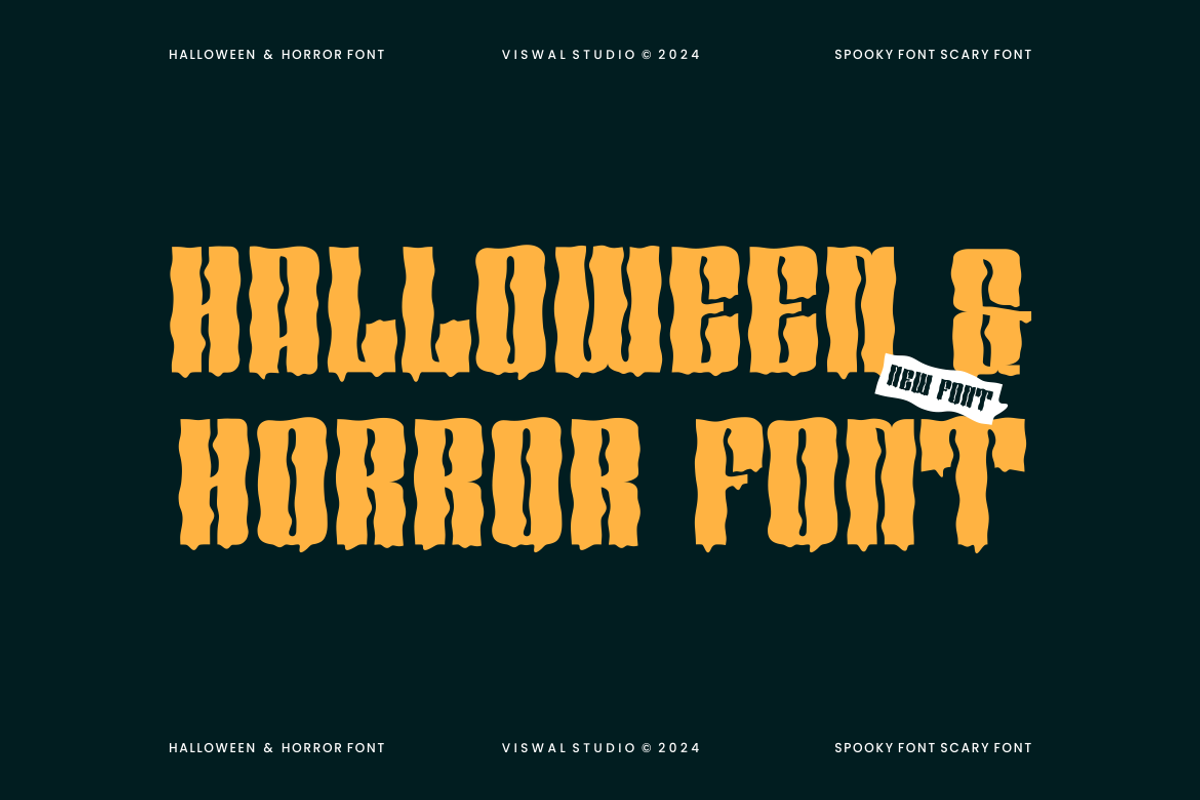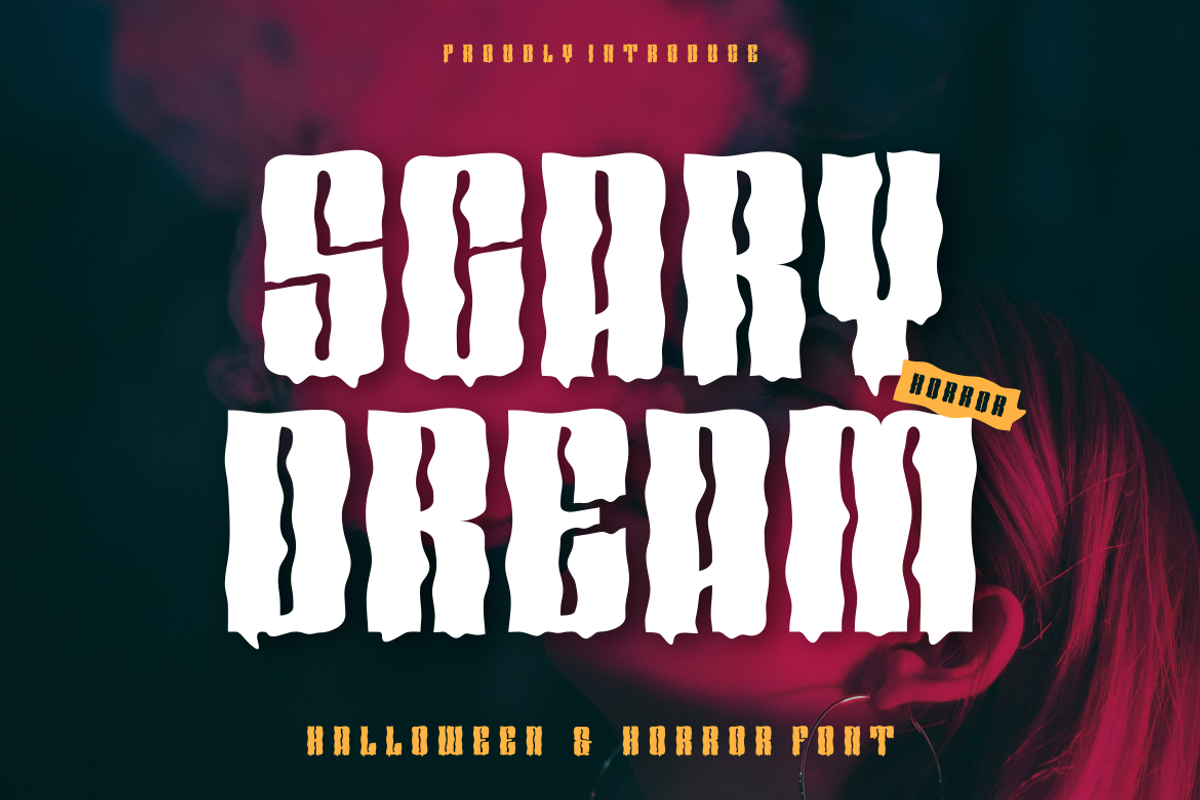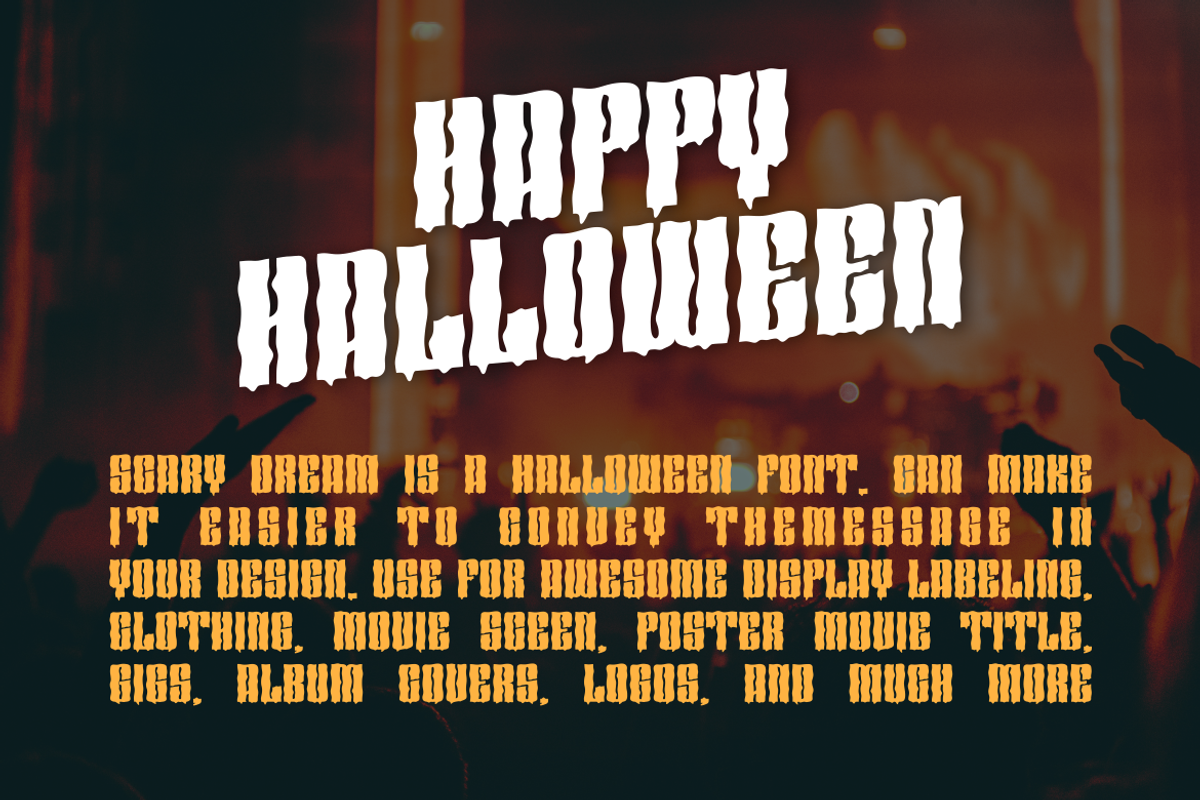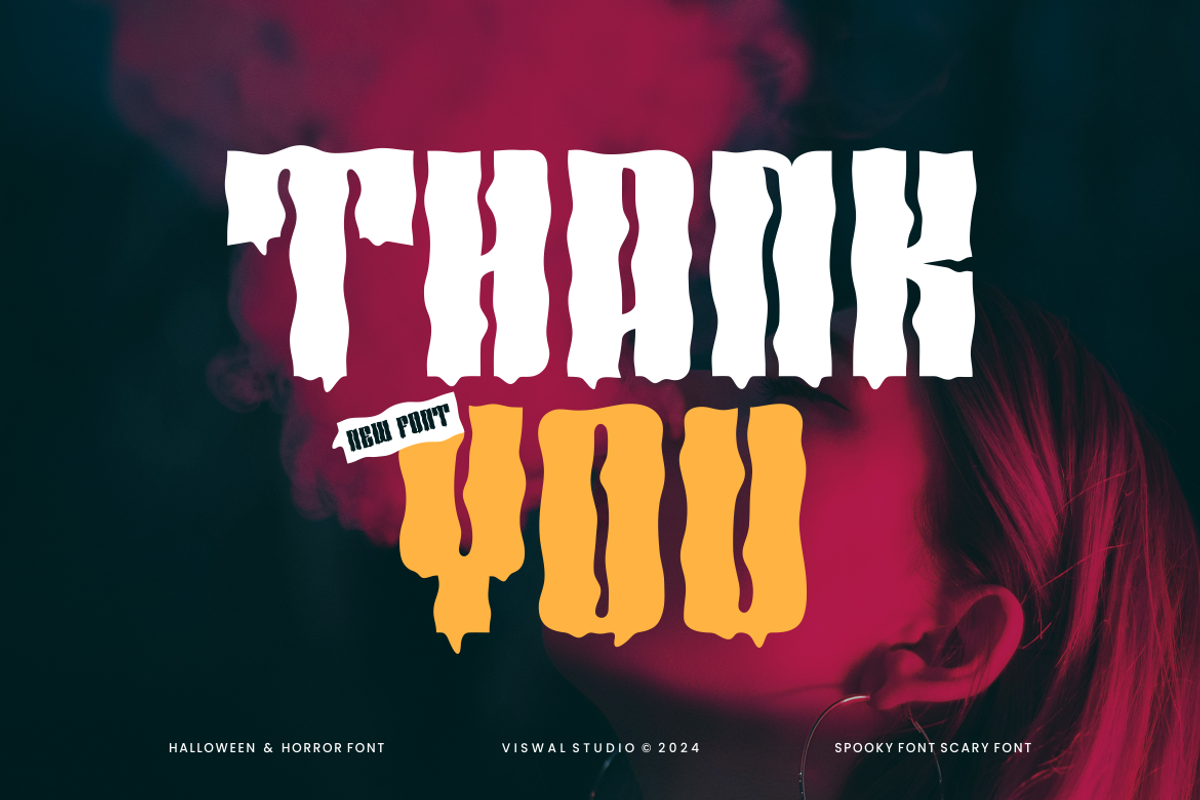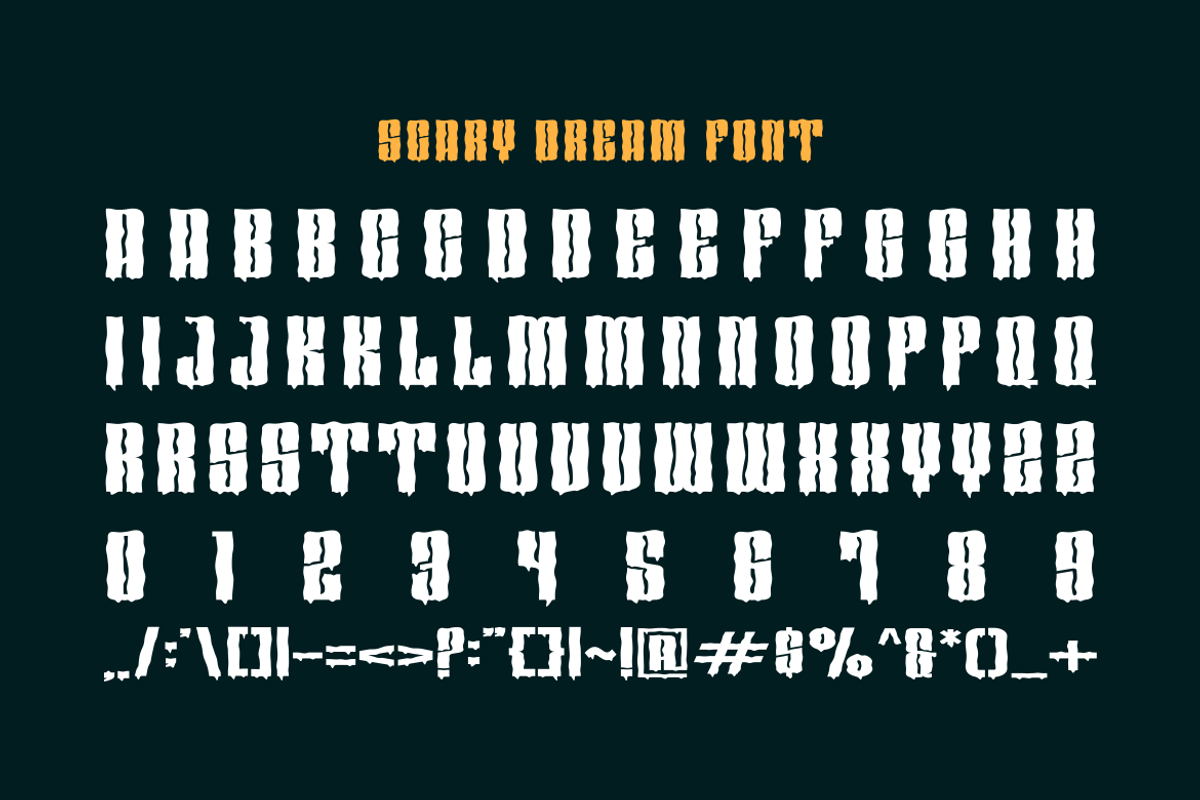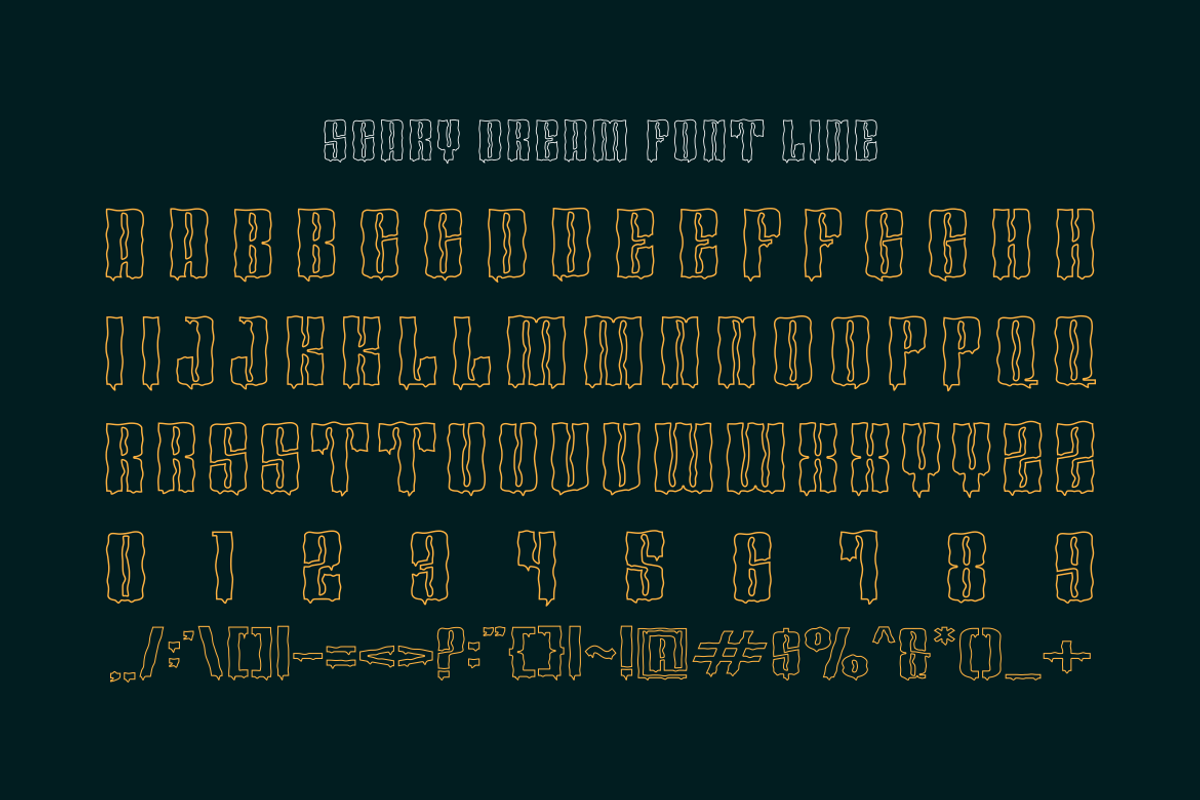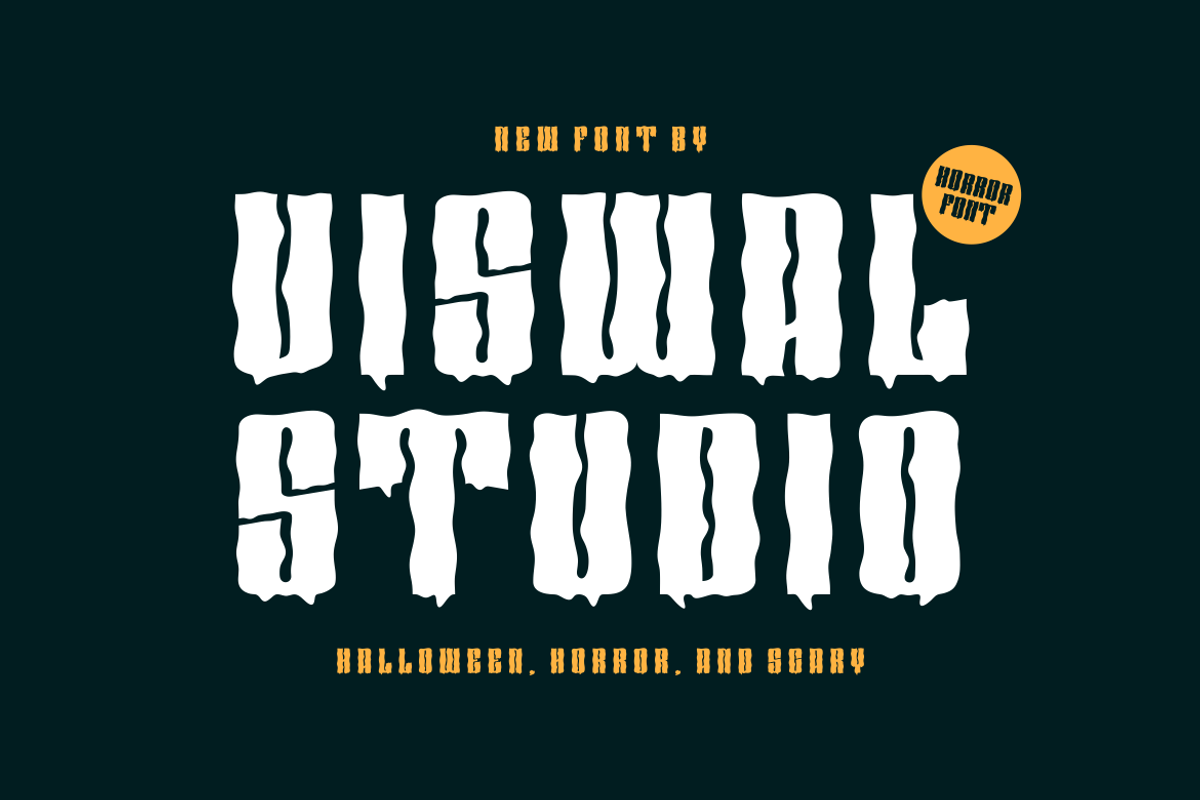
Scary Dream - Halloween Font
Presenting Scary Dream Is A Halloween Font
Can Make It Easier To Convey The Message In Your Design. Font Is Suitable For Logo, Labels, Badge, Branding, Magazine, Poster, Title, Gigs, Covers And Etc. Our Fonts Have Uppercase & Lowercase, Numeral & Punctuation, And Opentype Features. For Amazing Designs You Can Mix With Other Fonts As A Complement.